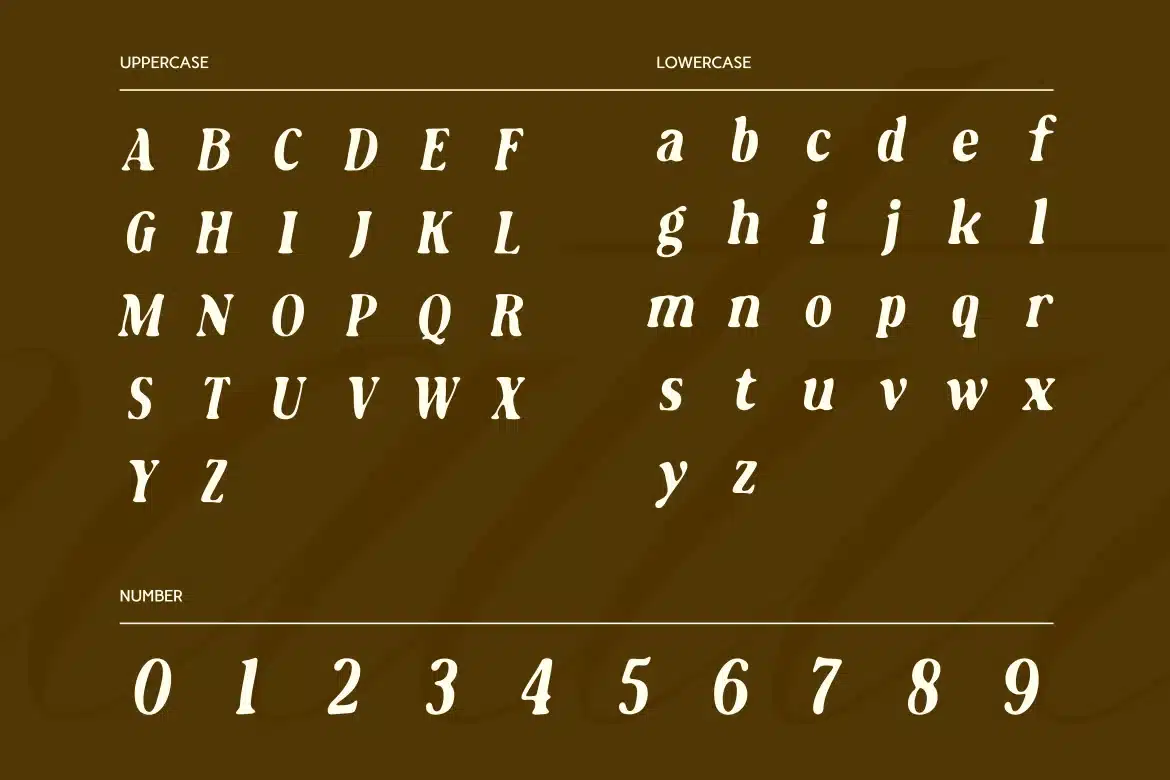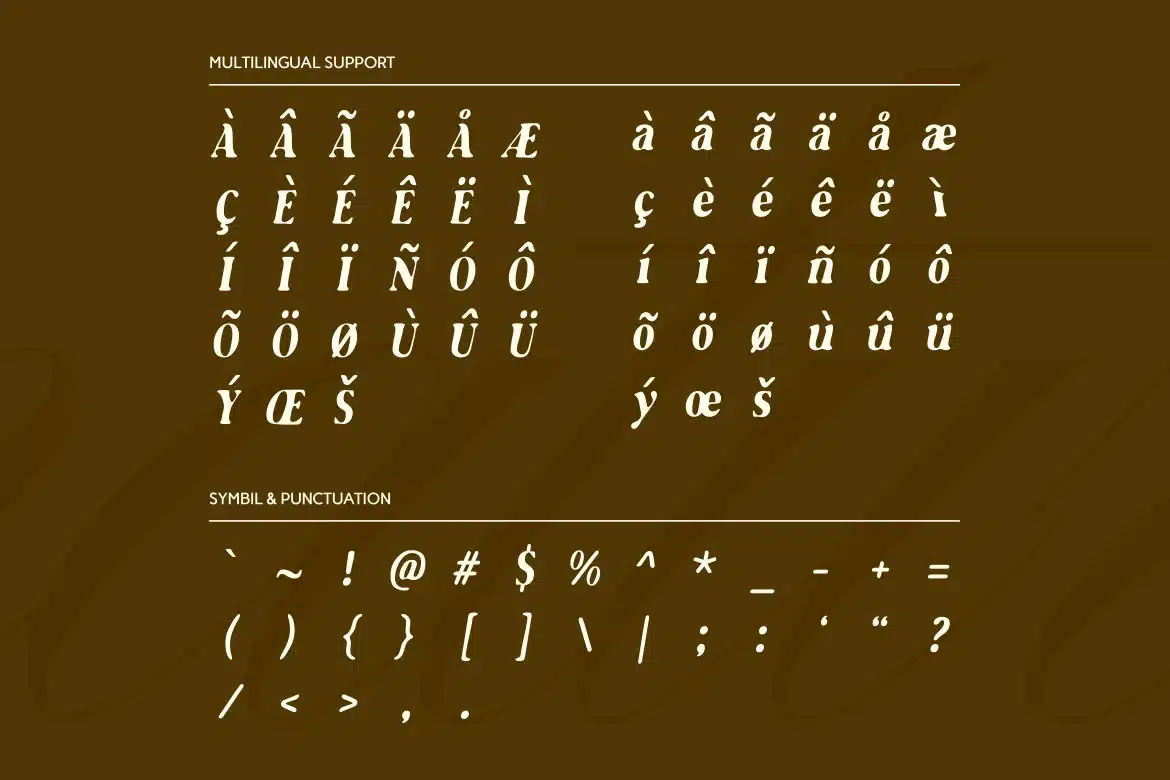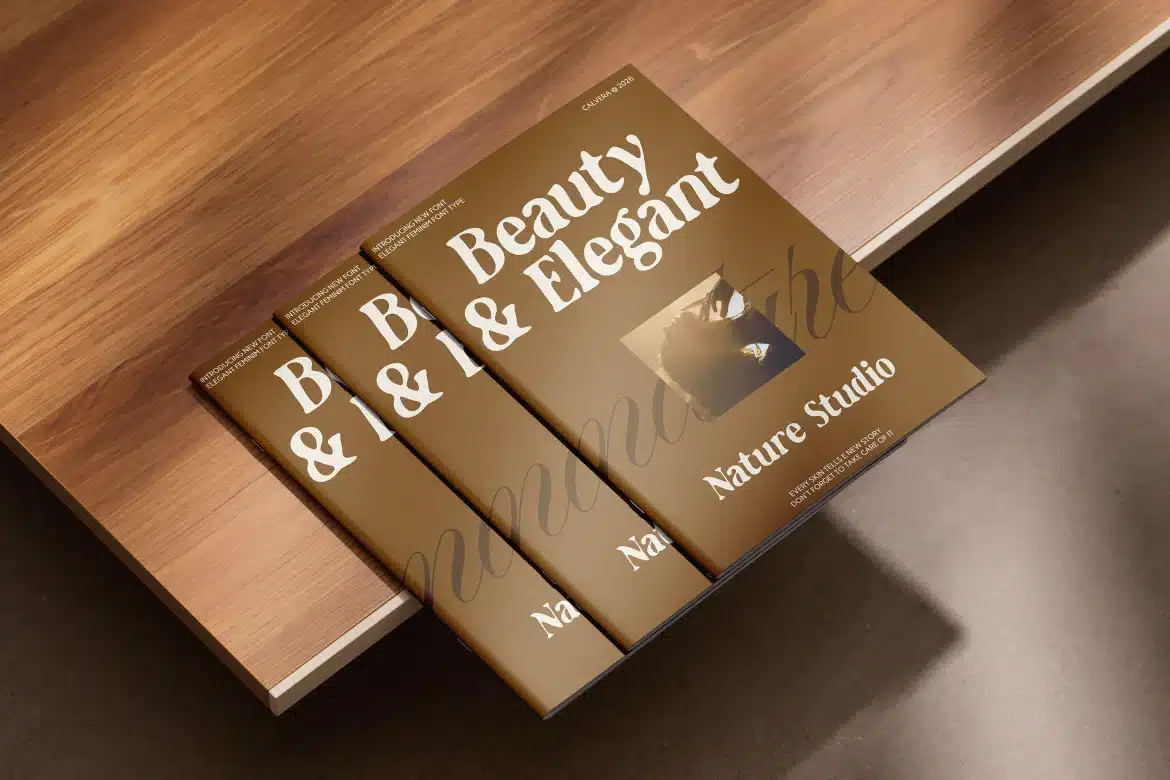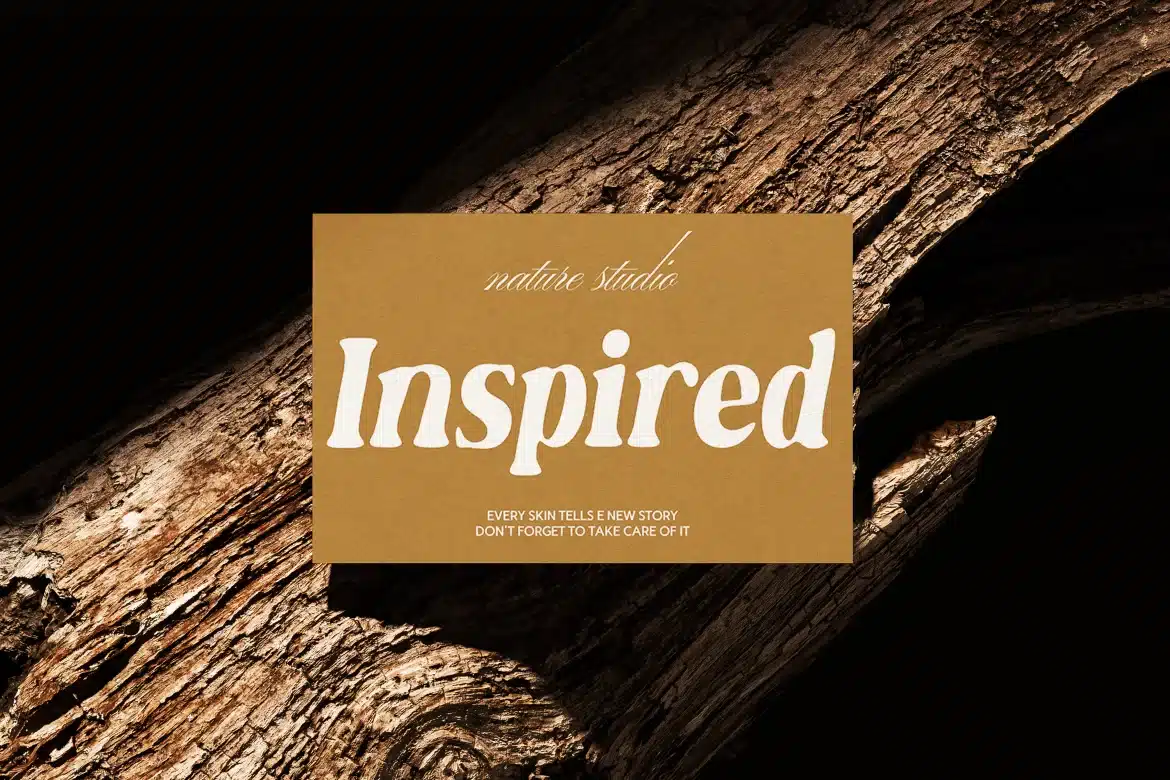
Calvera – Serif Display Font
Calvera is a stylish display serif font blending classic elegance with a soft vintage touch. Featuring refined curves and expressive letterforms, it’s perfect for branding, editorial design, packaging, and luxury visuals. Calvera delivers timeless sophistication and artistic charm, making every headline and layout feel distinctive, graceful, and visually captivating.